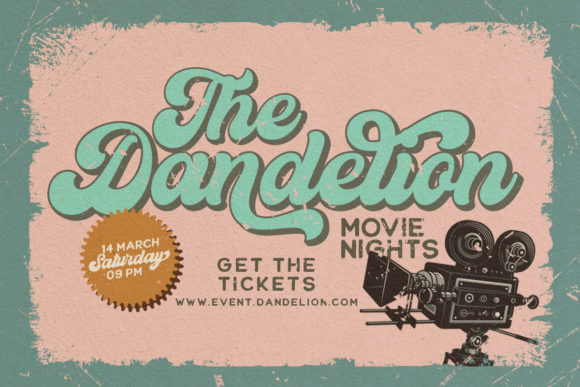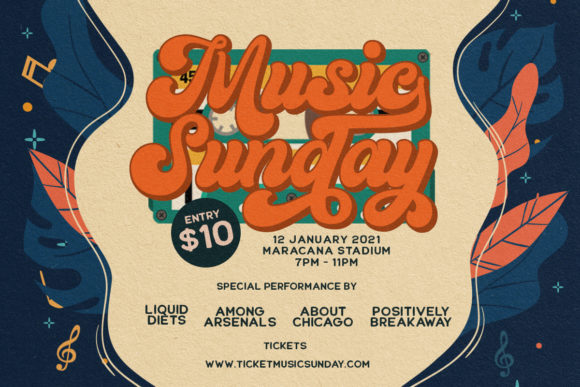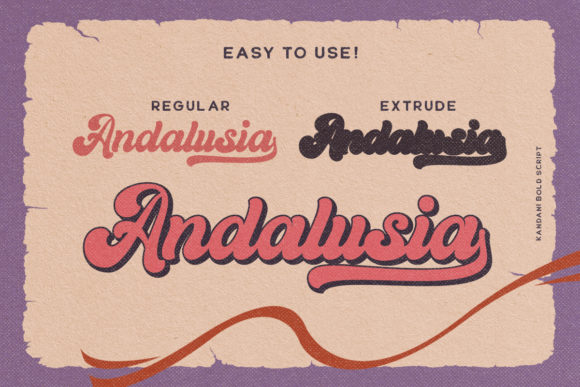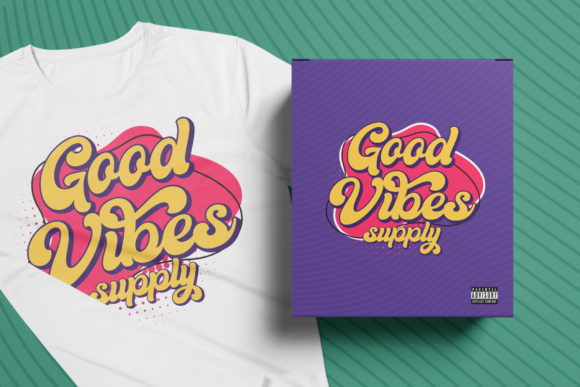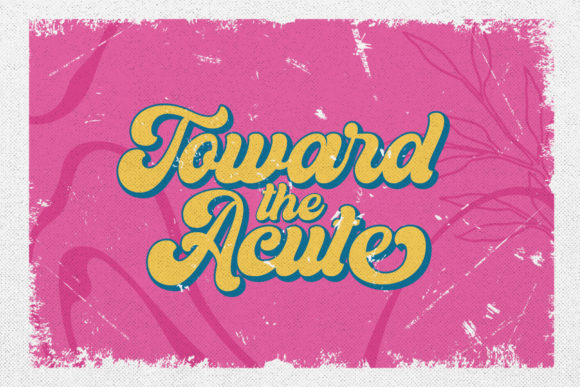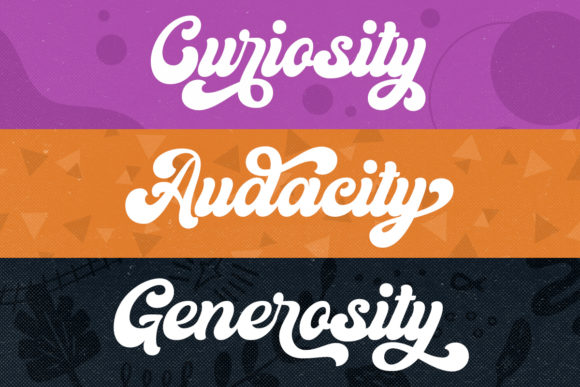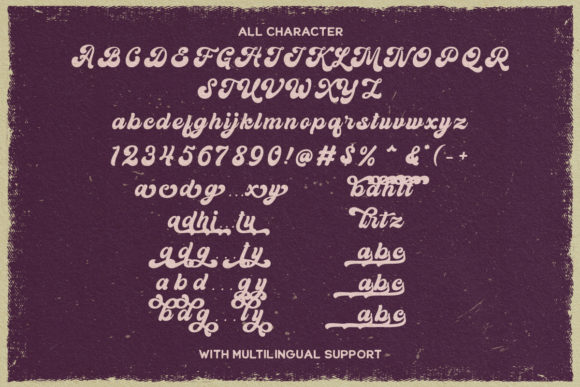
Kandani Font
About Kandani Font
Kandani is a bold and flowing handwritten font. It feels playfully nostalgic and delivers an incredible vintage aesthetic. Use this serif font to add that special retro touch to any design idea you can think of!